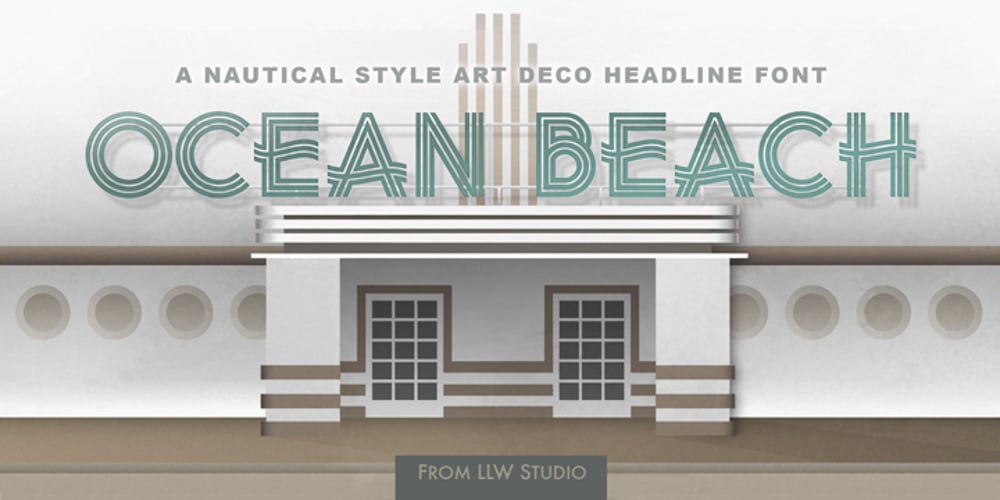
Ocean Beach
Ocean Beach font
Ocean Beach Font Family was designed by Lori LeBeau-Walsh and published by LLW Studio. Ocean Beach contains 1 styles and family package options. Ocean Beach is a fun, retro, all-caps Nautical Art Deco headline font. It sports geometric letterforms, perfect circles and highly stylized crossbars with waves on several letters—think the beach, flags rippling in the breeze and Fred and Ginger tap-dancing merrily on the deck of a ship! The inspiration for this font are the many whimsical nautical-themed buildings still to be found dotting the landscapes of America, from South Beach in Miami to hidden gems tucked away in industrial areas of southern California. I was fascinated by some of them when I was growing up, and in doing research on Art Deco styles I found many images of these wonderful buildings sporting portholes, streamlined moderne details and even faux rivets. Ocean Beach is created with a 3-stroke detail, and the complexity of the design will be appreciated better in larger sizes of type (36 pts or larger). Use this font for any application that needs a bold, decorative or Art Deco look; great for signage, magazine layout, illustration, posters and packaging.